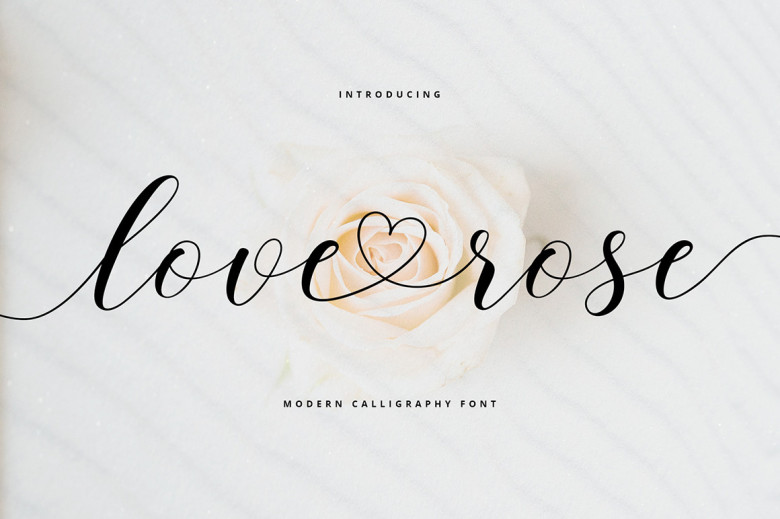
Love Rose Font
Love Rose is an elegant soft font for calligraphy that boasts a distinctive appearance and stunning impact, adding luxurious energy to any design project. Furthermore, Love Rose is PUA encoded, so that its fast accessing all its symbols and ligatures make its use quick and seamless!
Love Rose Calligraphy Font